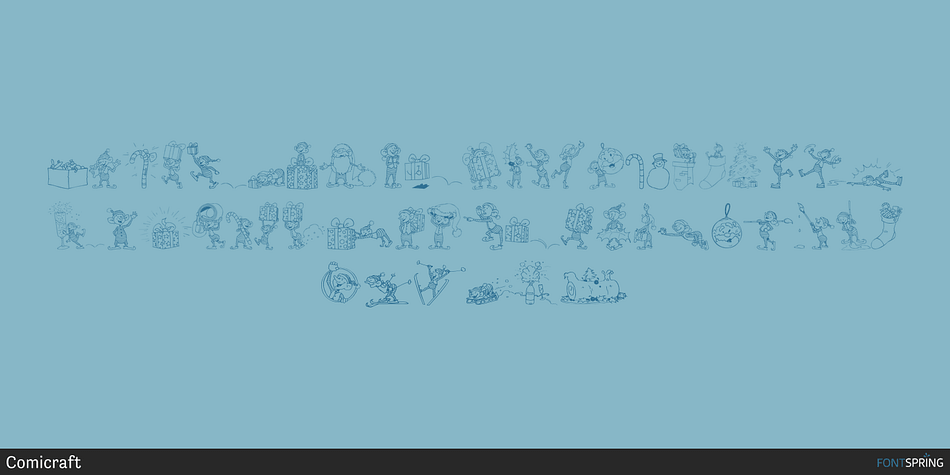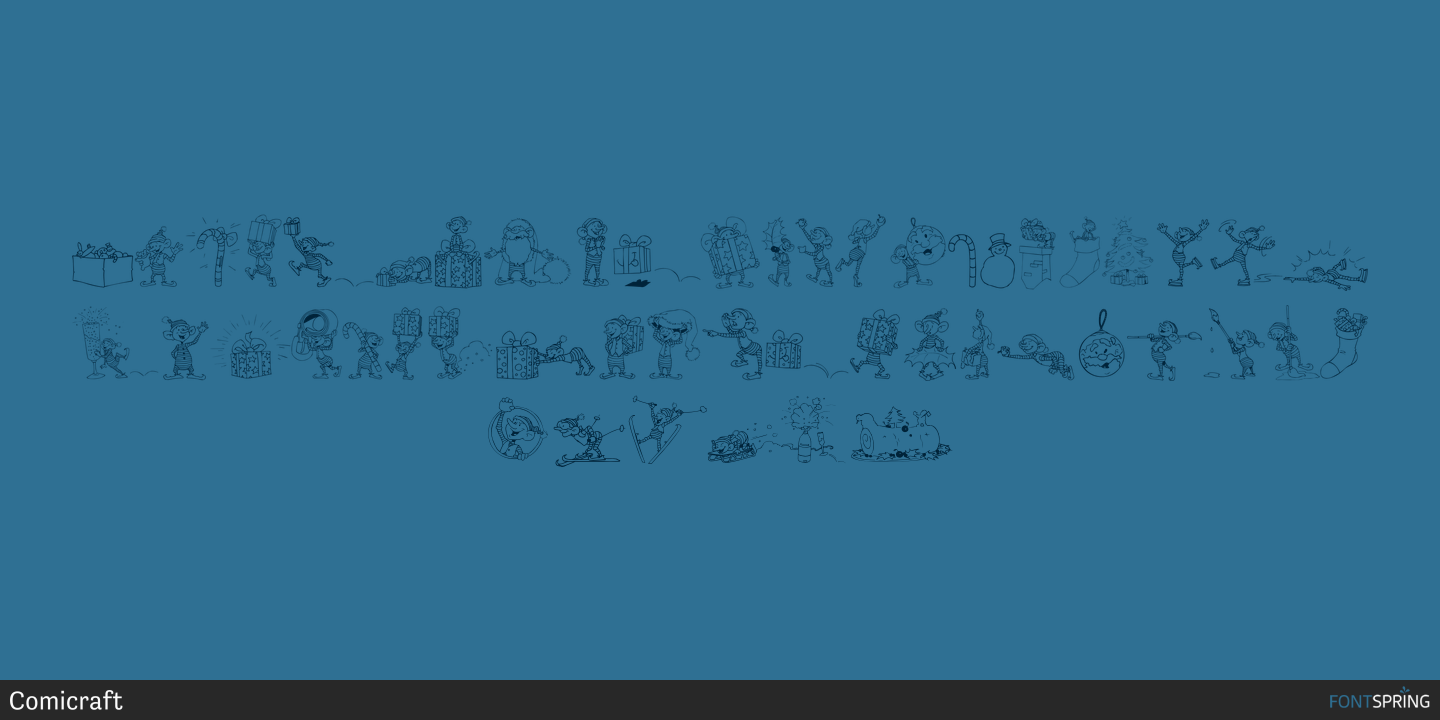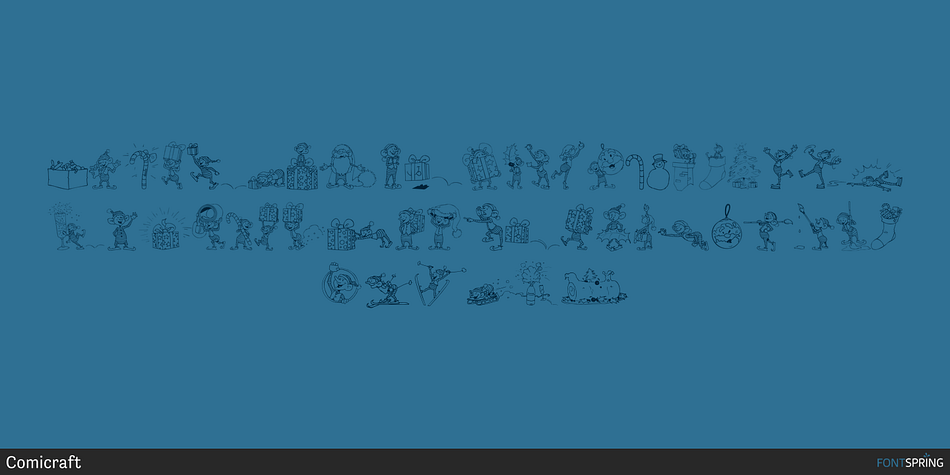
Designed by John Roshell, Santas Little Helpers is a dingbat font published by Comicraft.
The mischievous elves crowding the keys on Santa’s Little Keyboard might not make Santa’s work easier (even though they’re supposed to!), but they’ll certainly help you and your kids put together greetings and decorations for the holidays. Lovingly illustrated by ‘Lilou’, Santa’s Little Helpers will liven up cards and letters alike—or just print them out for your kids to color while they’re trying to get to sleep on Christmas Eve!!